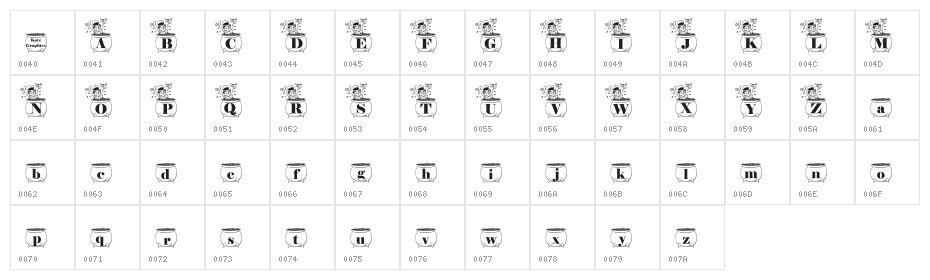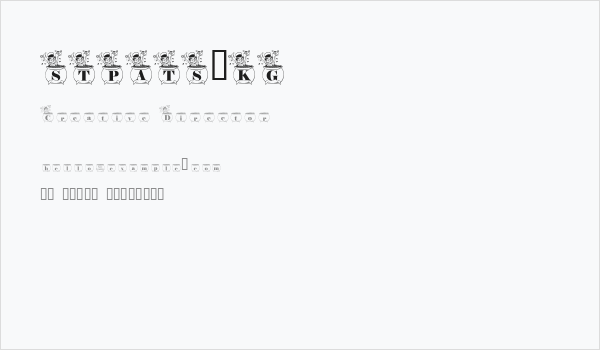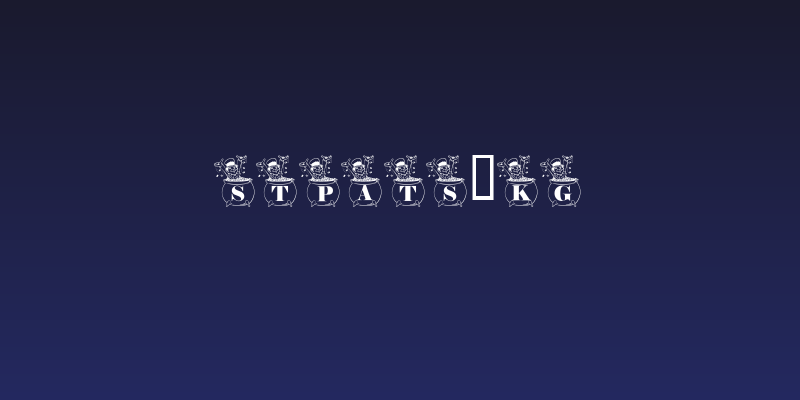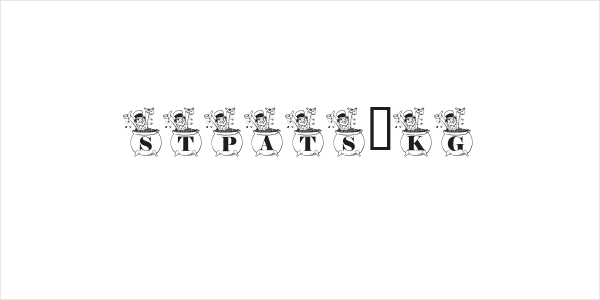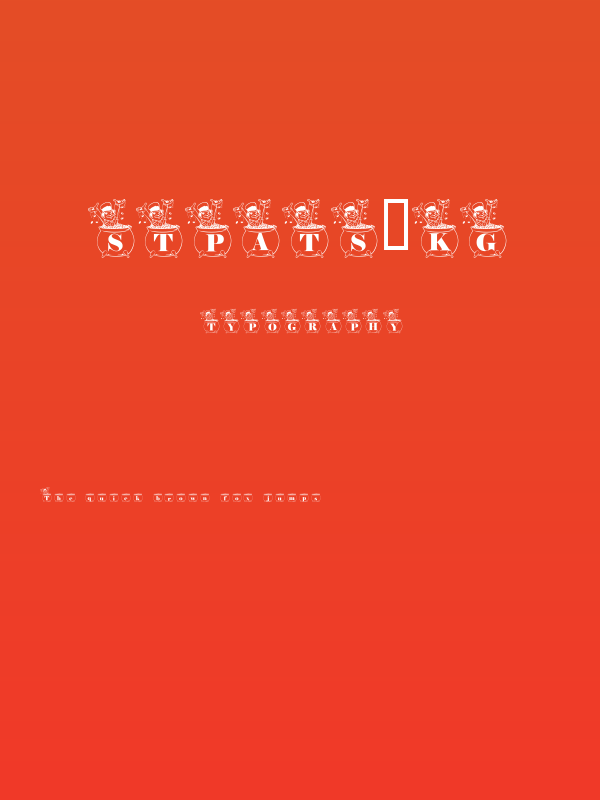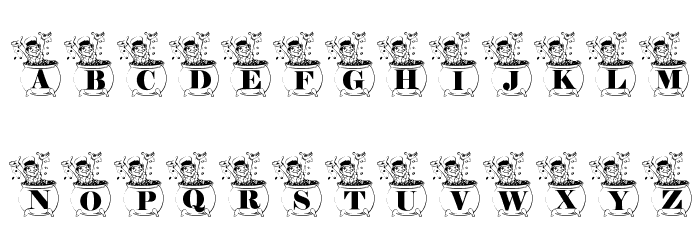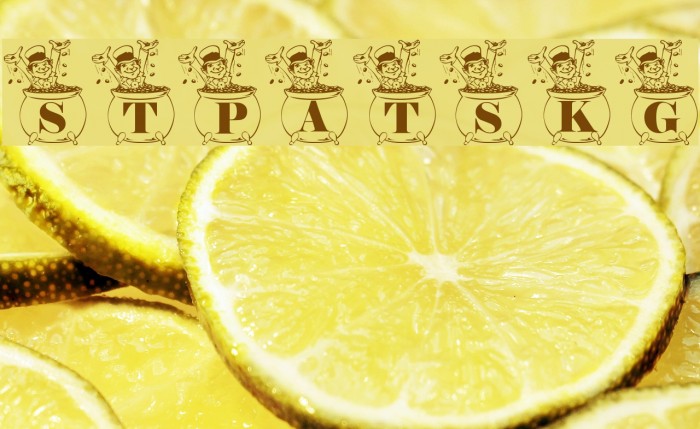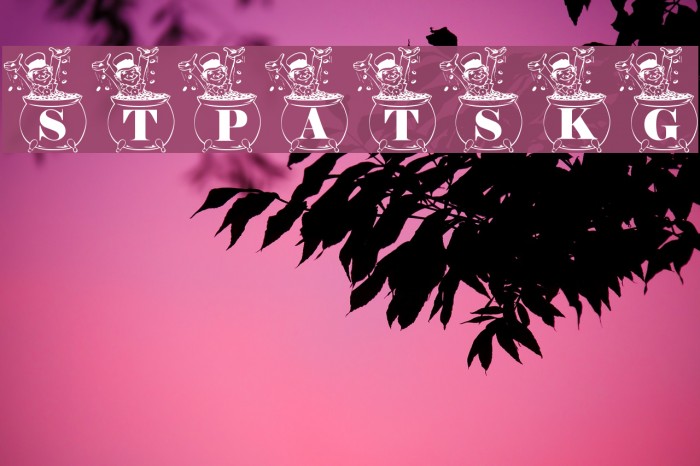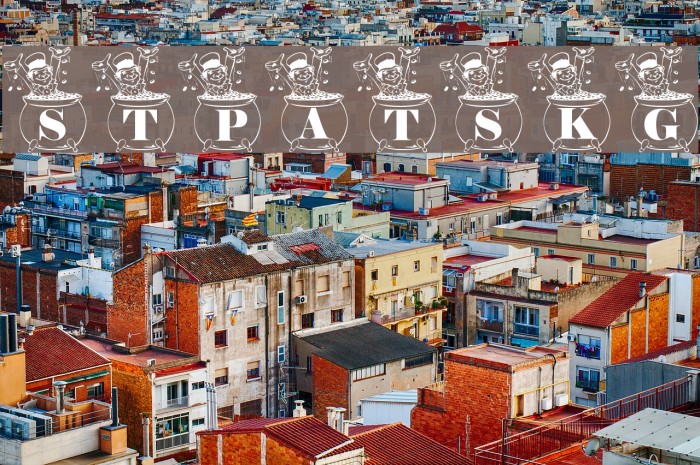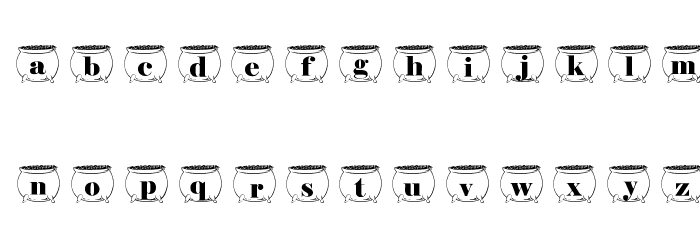
STPATS_KG Font
STPATS_KG Description
This decorative font features each character enclosed within a whimsical pot of gold, accompanied by a playful leprechaun. The uppercase letters are bold and prominent, while the lowercase letters maintain a consistent style within the same thematic pot. The numbers and special characters also follow this unique design, making the font ideal for festive and themed projects. The overall appearance is playful and eye-catching, perfect for capturing attention in creative designs.
| Proposed Projects | Ideal for St. Patrick's Day promotions, festive invitations, themed party decorations, and children's book titles. |